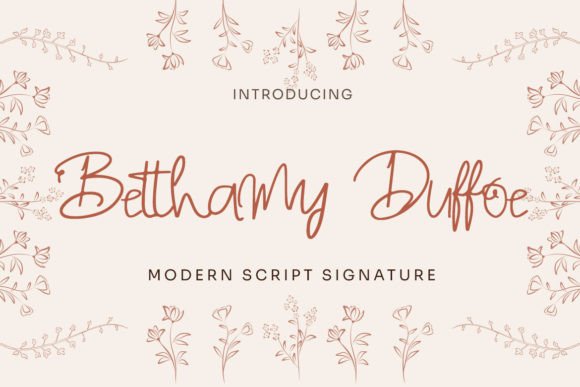
Unleash the beauty of love, romance, and elegance with Betthamy Duffoe, the script font that spells magic on your words. This contemporary script, designed by the talented Yumnacreative, is more than just a font; it's an expression of art that transforms words into visual masterpieces. Experience the enchanting allure of its flowing curves, the delicate serifs that dance with grace, and the minimalist design that exudes simplicity and class.
Betthamy Duffoe is the ultimate choice for crafting invitations that set the tone for unforgettable occasions, logos that leave a lasting impression, and branding materials that radiate sophistication. Its clean lines and perfect balance ensure readability at any size, making it the perfect font for captivating headlines, charming body text, and memorable taglines.
Whether you're a designer seeking to create breathtaking wedding invitations, a business owner yearning for a logo that resonates with elegance, or a blogger striving for a unique brand identity, Betthamy Duffoe is your muse. Step into a world of endless creative possibilities, where each letter is a brushstroke of artistry, and every word a symphony of beauty.
With its PUA encoding, unleashing the full potential of Betthamy Duffoe is a breeze. Access all the glyphs and swashes effortlessly, opening up a vast realm of customization and creativity. Let your imagination soar as you explore the nuances of this versatile font, crafting designs that captivate and inspire.
Make Betthamy Duffoe your font of choice and let your words take center stage. Experience the joy of creating designs that resonate with timeless elegance, leaving a lasting impression on all who behold them.